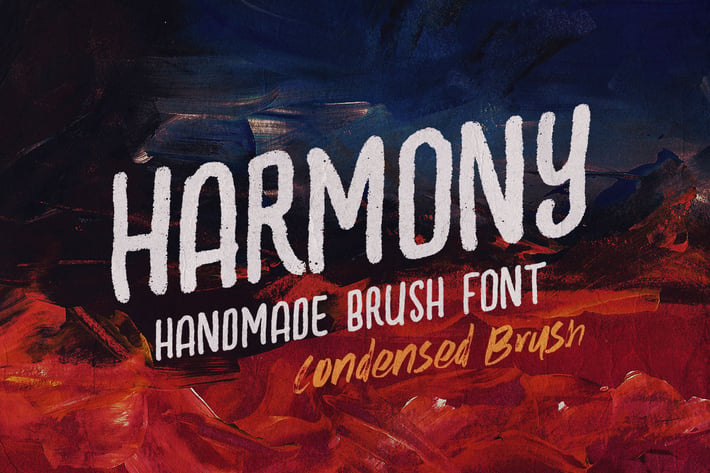
Harmony Condensed Brush Font
Grunge marker & condensed style sans display font for your new projects. Great for grunge, urban, freestyle or artistic projects!